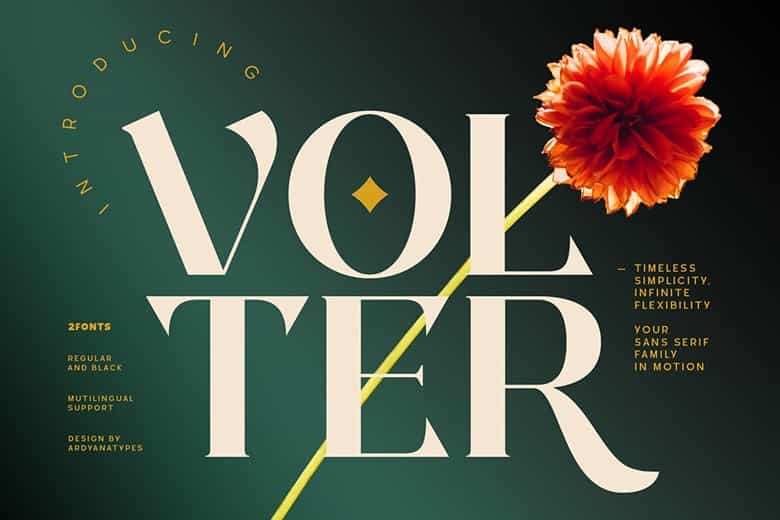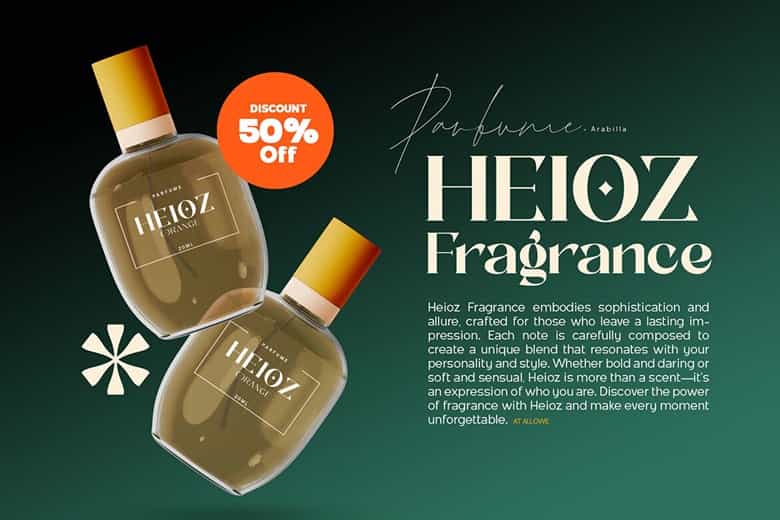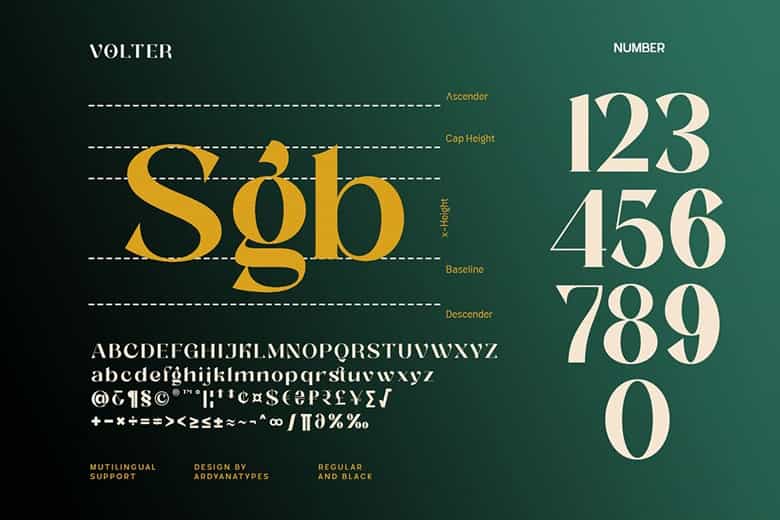
Volter has been described as a serif font that merges traditional sophistication and flexibility of contemporary typefaces. With precessious quality and technicality, Volter provides 9 varieties from Thin to Black which will enable the designers to produce stylish and distinctive productions.